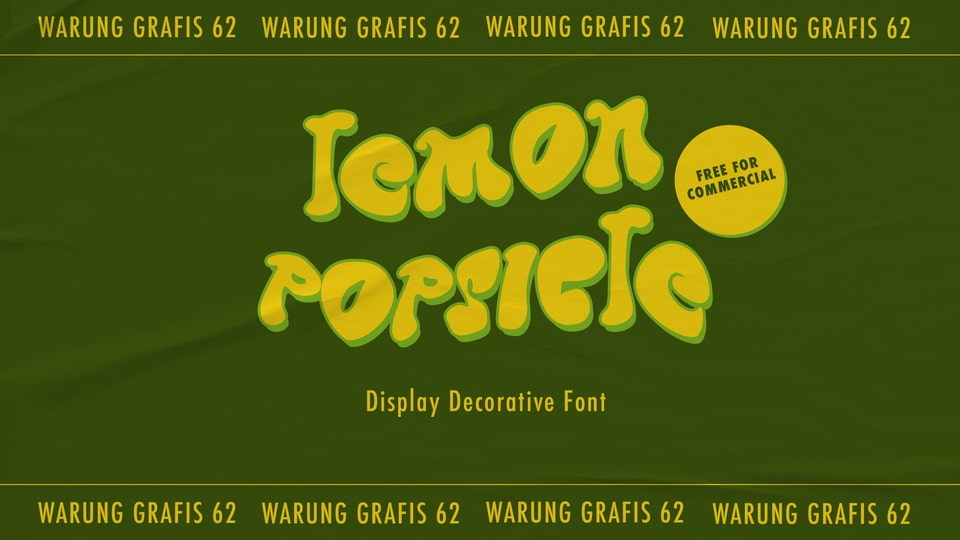
Download Lemon Popsicle font, a quirky display typeface that brings a delightful and unconventional touch to your design projects. With its unique and weird decorative style, Lemon Popsicle font is perfect for adding a playful and eye-catching element.